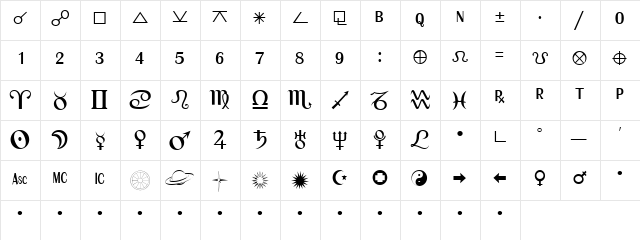
Astro Normal Font Preview
Astro Normal
Astro Normal Font Details
Design Context for Astro Typeface
Astro takes a measured approach to typography — its balanced proportions and neutral character make it a reliable workhorse for both digital and print work.